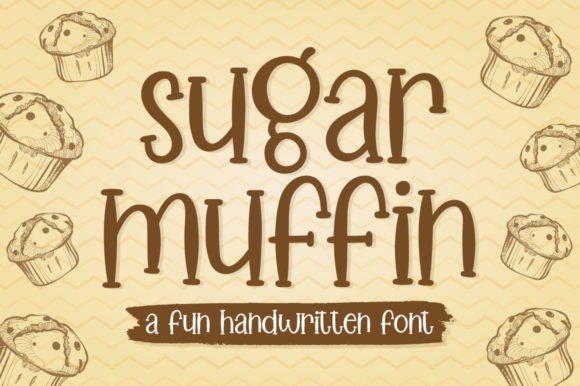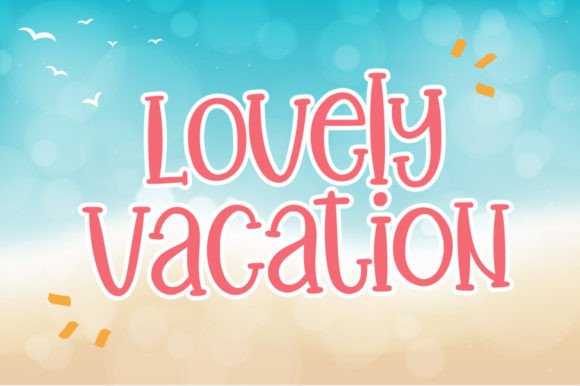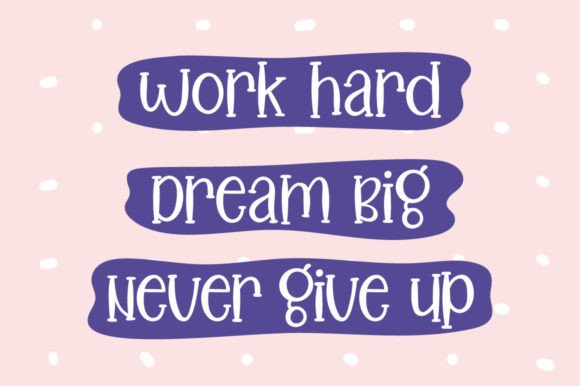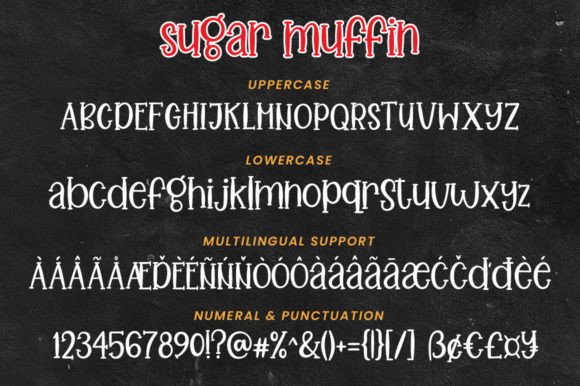
Sugar Muffin Font
Sugar Muffin Font: Playful Handwriting for Whimsical Designs
“Sugar Muffin” is a fun and playful handwritten slab serif font that adds a touch of whimsy to your designs. It’s perfect for various applications, from note-taking to product packaging.
Key Features of Sugar Muffin Font
• Playful Style: Sugar Muffin brings a fun and lighthearted feel to designs.
• Versatile Use: Suitable for many projects, including wedding stationery and logos.
• Unique Character: Creates an engaging atmosphere in typography.
Wedding and Gift Designs
Sugar Muffin’s whimsical style is ideal for creating charming wedding invitations and gift designs.
Branding and Packaging
Use Sugar Muffin to design approachable logo designs and product packaging that convey creativity.
Quotes and Watermarks
The font’s playful nature makes it perfect for creating eye-catching handwritten quotes and watermarks.
Why Choose Sugar Muffin Font?
Sugar Muffin offers more than just fun letters. Here’s why it stands out:
• Brings a sense of joy and lightheartedness to projects
• Conveys creativity and approachability effectively
• Adds a touch of uniqueness and charm to designs
By using Sugar Muffin, you open up new design possibilities. Its playful style works well in many contexts, from greeting cards to poster designs. The font’s ability to convey fun can inspire creative ideas and help you approach projects from a fresh, whimsical perspective.
If you’re looking for a font that’s both fun and versatile, Sugar Muffin is an excellent choice. It’s perfect for adding a touch of whimsy to your work, especially for projects that need a playful, inviting feel.
Explore how Sugar Muffin can transform your designs. From branding projects to personal creations, this font brings a joyful and engaging quality to your work.